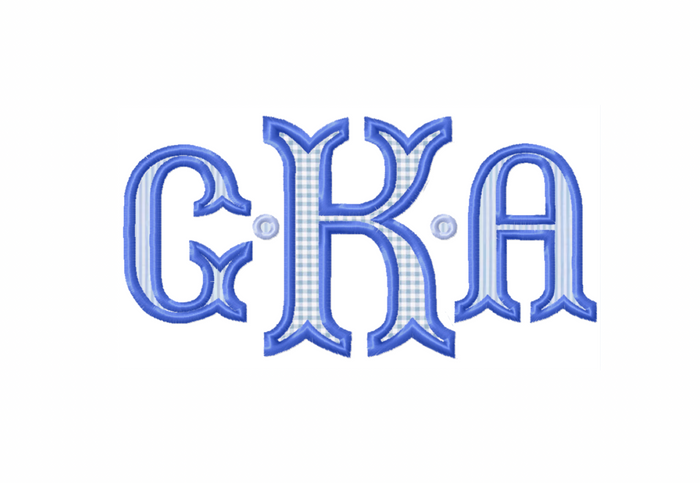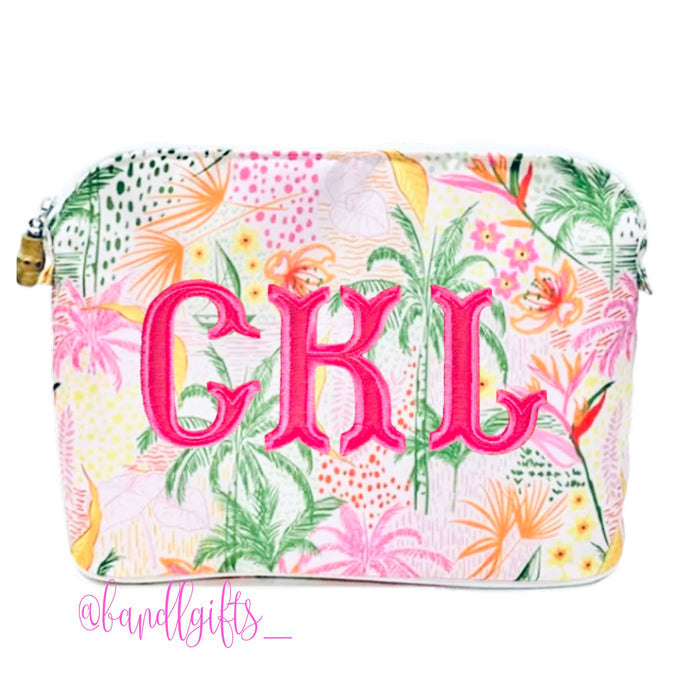
Fishtail Applique Embroidery Font 5x7
Unleash your creativity with the Fishtail Applique Embroidery Font 5x7, featuring striking uppercase letters A-Z and an accent dot for distinct monograms. This versatile applique font is designed to fit perfectly in a 5x7 hoop, with sizes including 3", 3.5", and 4" for all your crafting needs.